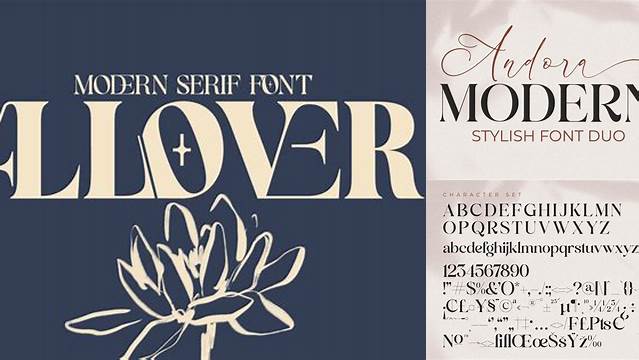
Modern Fonts On DaFont: A Designer's Guide
Introduction to Modern Fonts
Hey guys! Ever wondered about the magic behind the fonts you see everywhere, from your favorite websites to the sleek designs on your phone? Well, you're in for a treat! Today, we're diving deep into the world of modern fonts, specifically those you can snag on DaFont. DaFont is like a massive candy store for fonts, and it’s super easy to get lost in the awesomeness. Modern fonts are all about looking fresh, clean, and up-to-date. They're designed to catch your eye and make a statement, whether it’s in a headline, a logo, or even a simple text. We'll cover what makes a font "modern," how to find them on DaFont, and why they're so essential in today's design world. So, buckle up and let's explore the incredible variety of fonts waiting for you! Modern fonts are not just about aesthetics; they also reflect the current trends and styles in design. They often feature clean lines, geometric shapes, and a minimalist approach, making them incredibly versatile for various projects. Think about the brands you love – chances are, they’re using a modern font to convey their message. Using these fonts helps to communicate a sense of innovation and sophistication. They help you get the message across. This is what makes modern fonts special. They are very important, whether you are a designer or just creating a presentation. These fonts allow you to create a cohesive and visually appealing design. Understanding modern fonts will help you use them better.
What are Modern Fonts? – Features and Characteristics
Okay, so what exactly makes a font "modern"? Basically, modern fonts are defined by several key features. These features set them apart from classic typefaces. For starters, they often have a minimalist design, embracing simplicity over intricate details. This usually means clean lines and a focus on readability, which is perfect for all sorts of projects. Modern fonts also tend to feature geometric shapes and structures, giving them a contemporary look. You'll see a lot of straight lines and perfect circles. These shapes give a modern feel. You'll also find that many modern fonts are sans-serif, meaning they lack the small decorative strokes (serifs) at the end of letters. Sans-serif fonts are fantastic for digital displays and sleek designs. The font's kerning and spacing are another critical aspect of modern fonts. Great kerning and spacing improves readability. Some modern fonts include unique details that add a touch of personality and make them stand out. They’re designed to be versatile, so they work well in headlines, body text, and even logos. They’re all about creating a clean, professional, and visually appealing look.
Popular Modern Font Styles on DaFont
DaFont has a ton of modern fonts. If you want to find the best fonts for your design, look here. First up, we have the geometric sans-serifs. They’re super popular because they are clean, structured, and easy to read. These fonts are often used for tech brands and minimalist designs. Next, we have the rounded sans-serifs. These fonts have softer edges, which makes them friendlier and more approachable. They're great for websites, apps, and brands that want a welcoming vibe. Then there are the condensed fonts, which are designed to save space and work well in headlines or tight layouts. They're great when you want to make a big impact without taking up too much room. Finally, we have the display fonts, which are super unique and stylish. These fonts are designed to make a statement. Display fonts are often used for headlines, logos, and branding. They come in many different styles, from sleek and sophisticated to bold and playful. Explore these styles on DaFont, and you'll discover plenty of options to make your designs pop. When you're looking for the perfect font, consider your project’s purpose, target audience, and the overall message you want to communicate. Choosing the right font style can significantly influence how your design is perceived. The right font makes a huge difference in your design!
Tips for Choosing the Right Modern Font
Considerations for Readability and Legibility
Choosing the right font is critical to your design. Your top priority should always be readability. It is important to use fonts that are easy to read. This is especially true for body text. To make sure your fonts are readable, consider a few things. Make sure the font is suitable for the font size you’ll be using. Some fonts look amazing in big headlines but are hard to read in smaller sizes. You can fix it by using the right font size. Choose a font that’s easy to read at a distance. Good contrast between the text and the background is also super important. Light text on a dark background or dark text on a light background is often best. Avoid fonts that are too thin or have overly stylized characters. Always preview your text in different contexts to make sure it’s easy to understand. Good legibility makes a huge difference in your design. Think about your audience, because they will have different needs. If you’re designing for an older audience, you might need to use larger fonts or fonts with higher contrast. Make sure your chosen font fits your project and enhances the user experience. Following these tips, you can be sure that your chosen modern font is both stylish and easy to read! This makes your message clear.
Matching Fonts to Your Project's Style and Purpose
Okay, let's get down to the fun part: choosing the right font. Remember, the best font is the one that fits your project’s style and purpose. The font needs to reflect the message you’re trying to send. If you're creating something formal, you might want a clean, elegant sans-serif font. If you're creating a fun, playful project, you can use a more casual font. Think about your audience. A corporate website will need a more professional font. The purpose is important as well. Match the font with your goals! Also, consider the overall design of your project. Does your project have a minimalist design? If so, a simple, clean font will work best. Need something unique and creative? You can use more distinctive fonts. You can also test different fonts. Experiment with font pairings and see what works best. It's also important to be consistent. Keep your font choices consistent throughout your design. Choosing the right font isn't just about aesthetics; it's about communicating your brand’s identity and message effectively. This will make your design successful!
Final Thoughts and Encouragement
It's been a fun journey exploring modern fonts! These fonts are incredibly versatile. They can really make your designs stand out. Don’t be afraid to experiment with different styles. Mix things up! The best way to learn is by doing. Play around with different fonts and see what looks best. If you’re just starting out, try experimenting with different combinations. Remember, there’s no right or wrong answer when it comes to design. Have fun and be creative! Keep your eyes open for inspiration. Explore the world of design and discover new fonts. With a little practice, you'll be a font pro in no time! Happy designing, everyone! Go out there and create some awesome projects! Keep being creative and keep exploring the world of modern fonts. Your projects will look amazing!